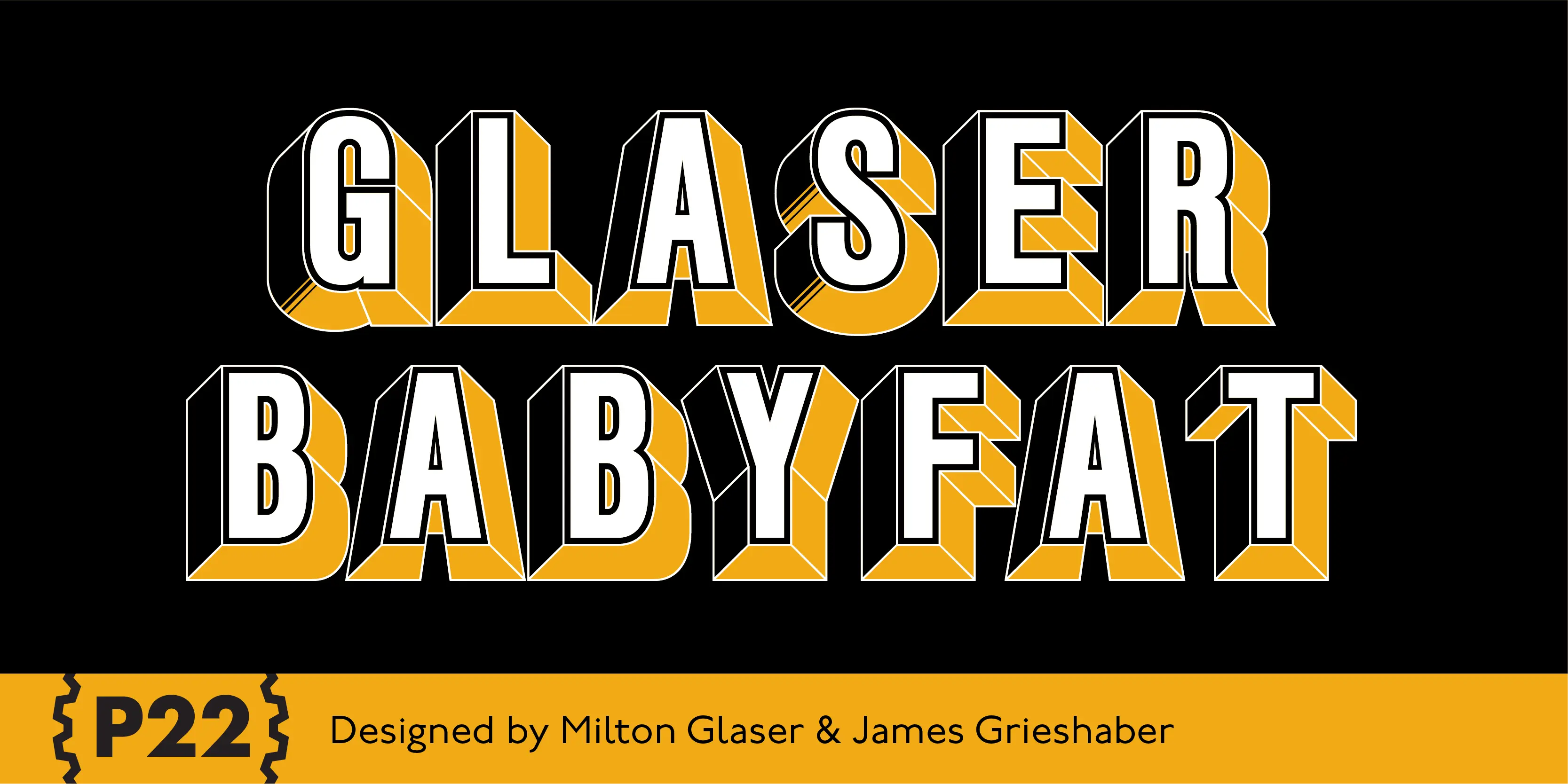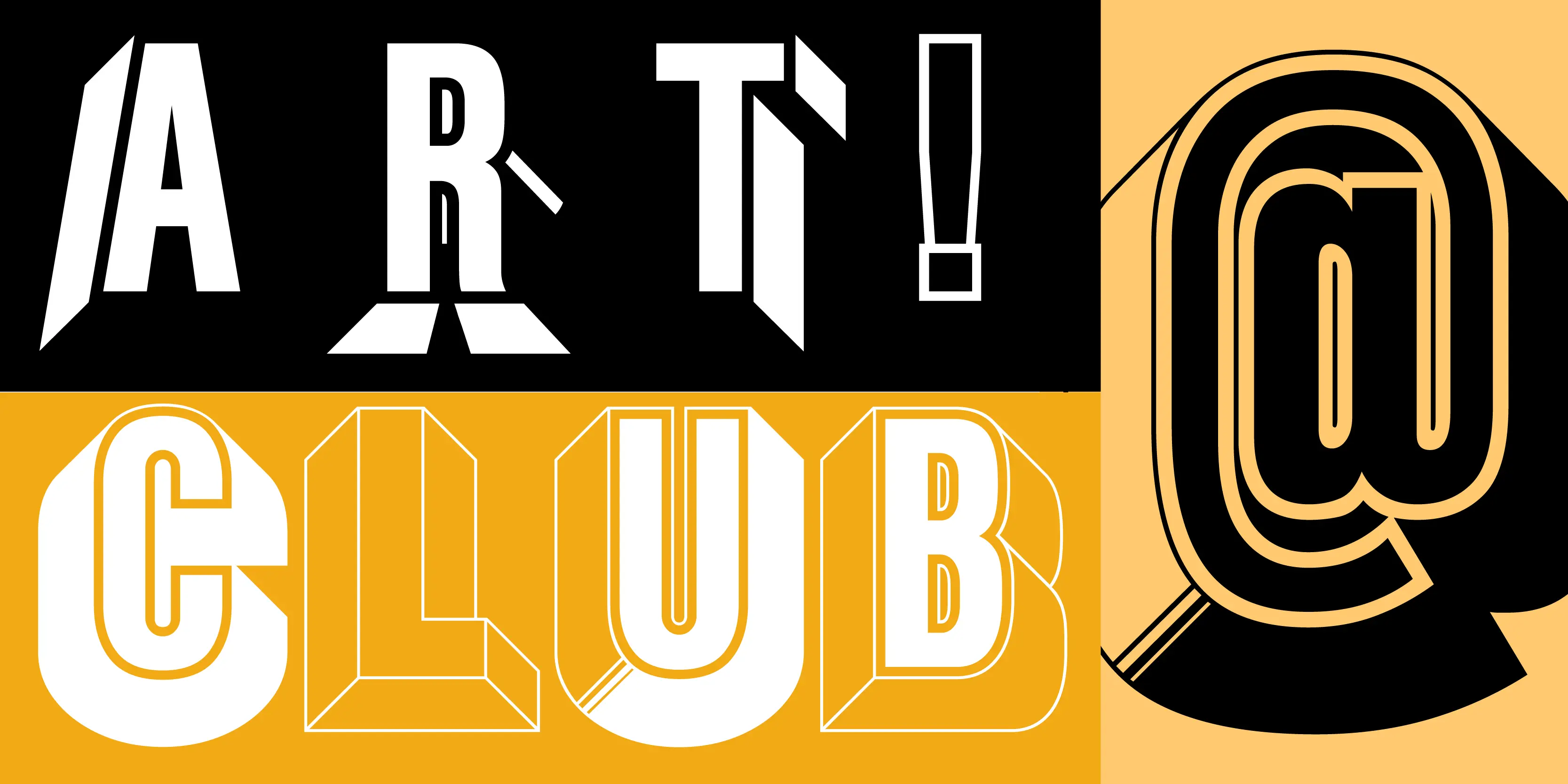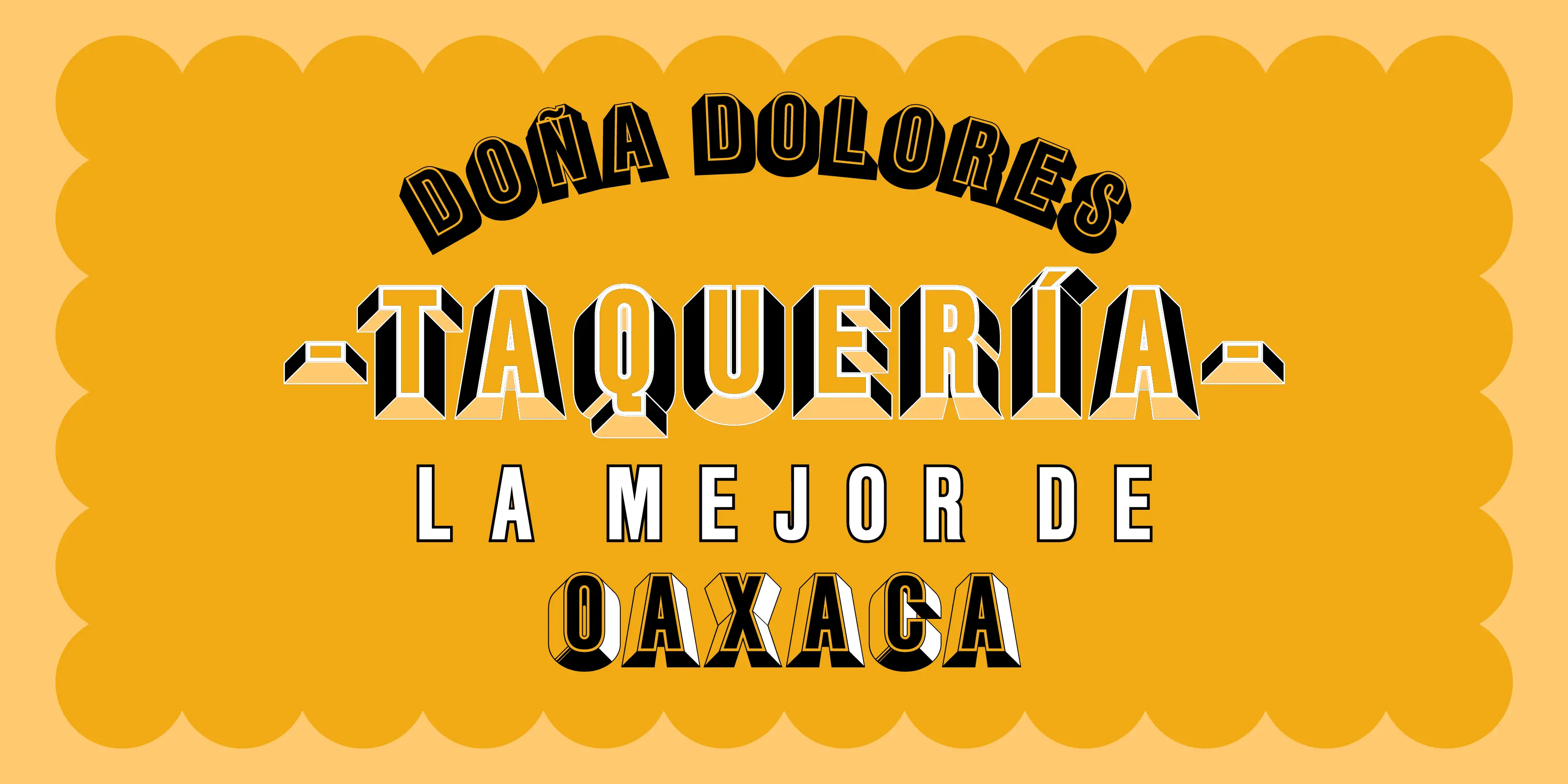
Glaser Babyfat Font Family
Glaser Babyfat
Milton Glaser on designing Babyfat: “This is the first alphabet I ever designed. For some inexplicable reason I called it Babyfat. Because I’m not a type designer, most of my alphabets are actually novelties or graphic ideas expressed typographically. Here the idea was to take a gothic letter and view it simultaneously from two sides. It started out as a rather esoteric letterform; it ended up being used in supermarkets for ‘Sale’ signs.” This forced perspective 3-D font has appeared on many LP covers and posters from the mid 1960s onward. This revival includes the original lowercase for the first time in digital form. Besides the three original styles (Outline, Shaded, and Black) made for photo typesetting, the new P22 Glaser Babyfat introduces six additional variations to allow the user to easily colorize the type as Glaser envisioned. The Keyline, Fill, Glyph, Left, Right, and Down font styles give the user nearly infinite options to create dynamic chromatic effects. P22 Glaser Babyfat was based on original drawings and phototype proofs from the Milton Glaser Studios archives. Typographic punctuation and sorts were imagined by James Grieshaber to work with Glaser’s design, as well as diacritics to accommodate most European languages. Over the years there have been many typefaces that borrowed heavily from the Glaser designs, but these are the only official fonts approved by Milton Glaser Studio and the Estate of Milton Glaser.